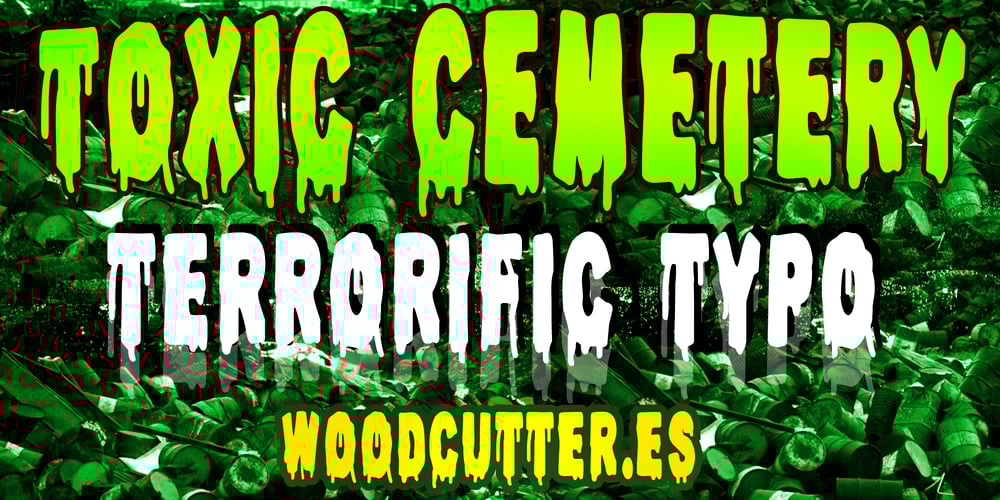
Toxic Cemetery Font Family was designed by Jordi Manero and published by Woodcutter. Toxic Cemetery contains 1 styles and family package options. “Toxic Cemetery” is a font that encapsulates horror at its finest. With dripping letters that seem to ooze toxic fluid, this typeface exudes a sinister and disturbing aura. Each character is designed to convey a sense of danger and decay, perfect for horror and sci-fi themed projects. Ideal for posters, covers, and any design requiring a macabre and creepy touch. The letters, though uniformly terrifying, maintain coherence for easy readability, making “Toxic Cemetery” a formidable choice for those looking to instill fear in their audiences. –Uppercase